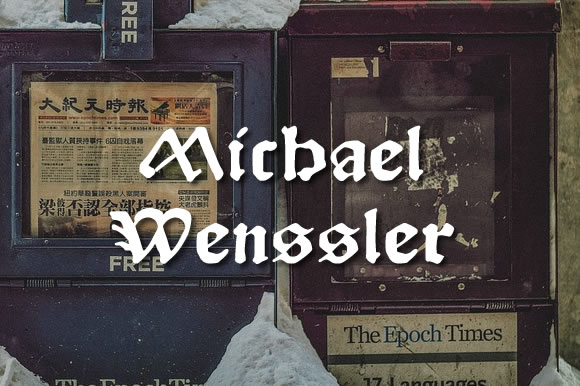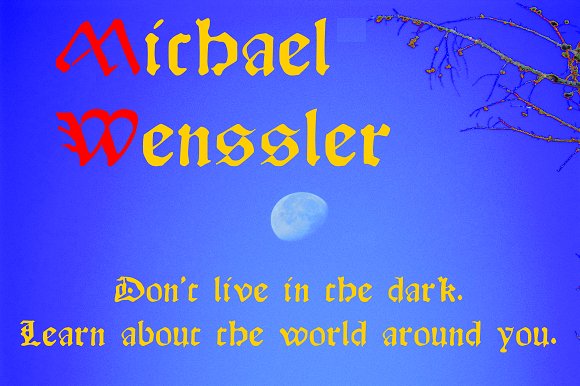
Michael Wenssler Font
About Michael Wenssler Font
The Proportional Lime Foundation is delighted to bring back a font face of Michael Wenssler who was a printer based in Basel Switzerland from 1472-1490. This font has a wonderful round and broad feel to it with pleasing decorative elements that set it apart from other black letter typefaces.